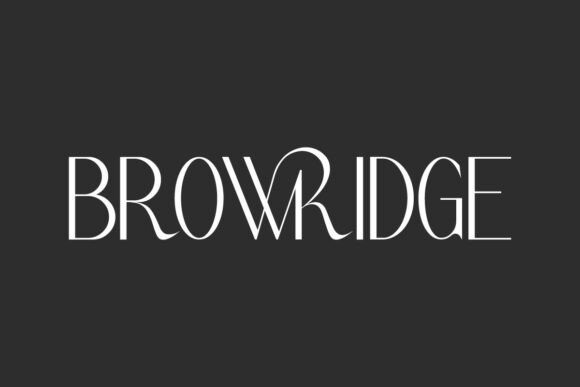
Ah, the eternal quest for the perfect font! I still remember the time I was working on a project for a client who wanted a modern, elegant look. I spent hours scrolling through font libraries, trying to find the one that would make their brand shine. And then, I stumbled upon Browridge Font. It was love at first sight! ✨ With its sharp details and clean geometry, it delivered both professionalism and personality. In this article, I’ll share my experience with Browridge Font, its features, and how to make the most of it in your designs.
What is Browridge Font?
Browridge Font is an elegant sans-serif font that combines sharp details with clean geometry. It’s a versatile font that comes in three styles: Display, Sans, and Serif. The Display font is perfect for standout headlines, the Sans font is great for clean layouts, and the Serif font is ideal for classic, readable text. This trio gives you all the tools you need to build a cohesive visual identity.
• ✨ Elegant and modern design
• ✅ Versatile and highly customizable
• 🔍 Perfect for a wide range of projects, from advertisements to website pages
While Browridge Font is an excellent choice, there are a few things to keep in mind: ⚠️ It may not be the best fit for very long texts, as it’s primarily designed for headlines and short paragraphs. 🤔 Additionally, some users may find the font a bit too geometric, which can make it less suitable for certain design styles.
Browridge Font was designed with the goal of creating a modern, elegant font that would meet the needs of designers and crafters. The font’s creator was inspired by the clean lines and geometric shapes of modern architecture and industrial design. The result is a font that’s both professional and stylish, perfect for a wide range of design projects.
Q: Is Browridge Font suitable for body text?
A: While Browridge Font is primarily designed for headlines and short paragraphs, it can be used for body text in certain design contexts. However, it’s recommended to use a serif font for longer texts to ensure readability.